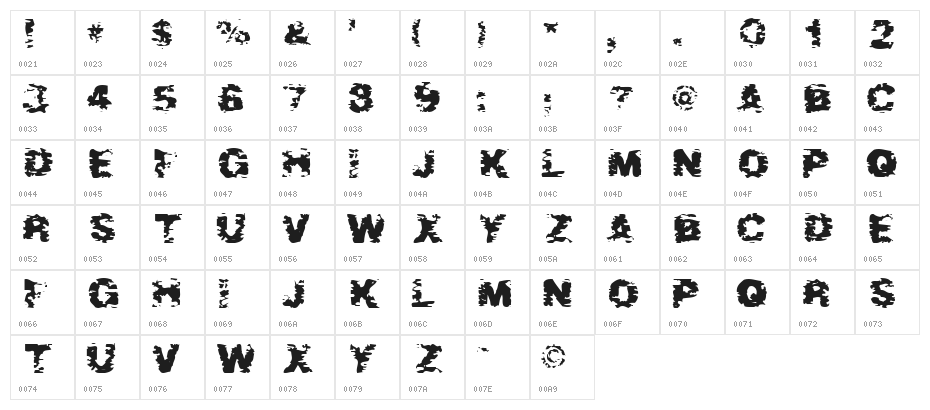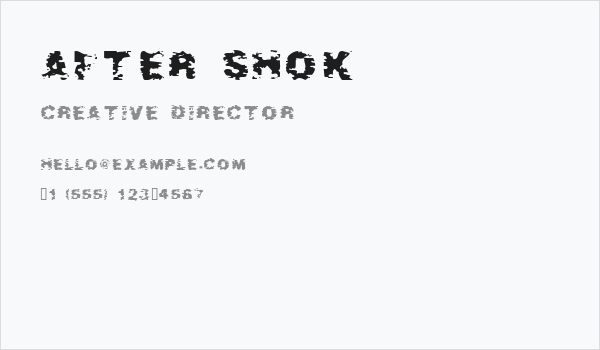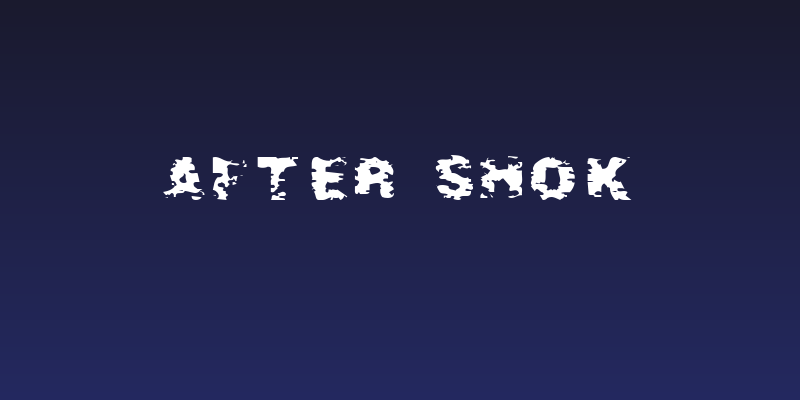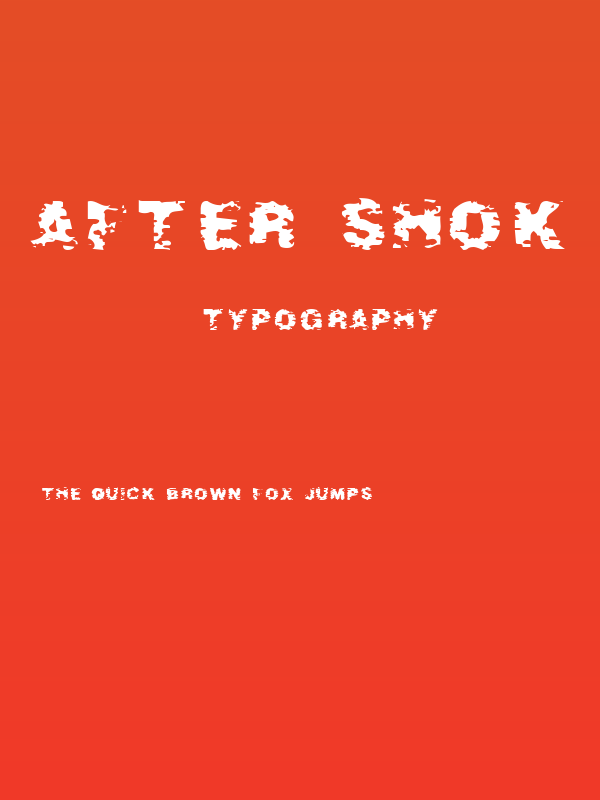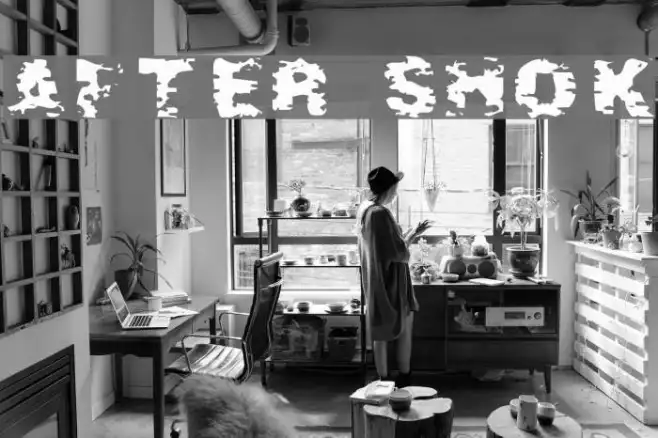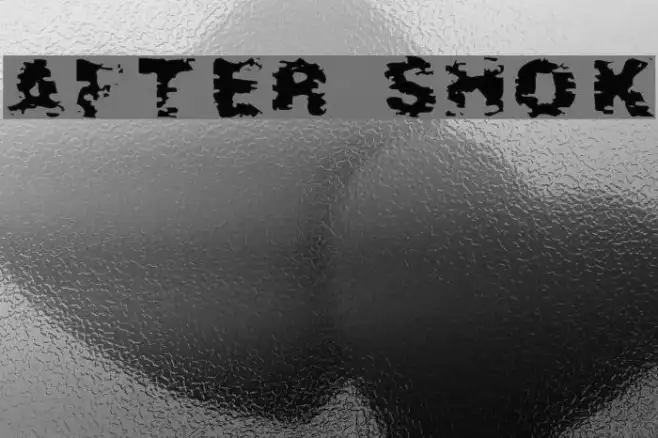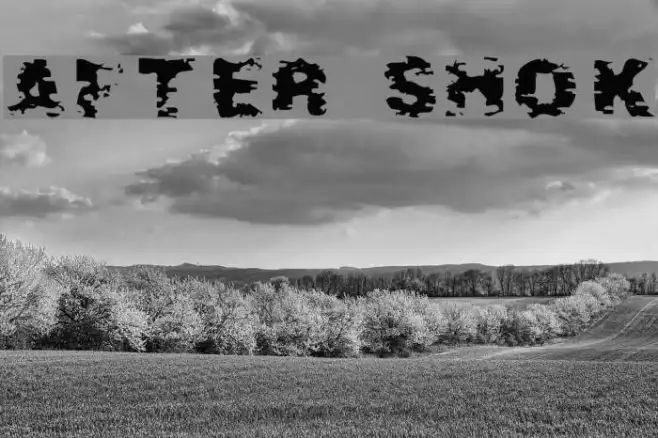
After Shok Font
After Shok Description
This font features a distressed, grunge style with a bold and impactful presence. Each character appears as if it has been weathered or eroded, giving it a unique, rugged texture. The uppercase and lowercase letters maintain a consistent design, with jagged edges and irregular shapes that add to its chaotic aesthetic. The numbers and special characters follow the same theme, ensuring a cohesive look across all glyphs. This font is perfect for projects that require a raw, edgy feel, such as music album covers, posters, or any design that aims to convey a sense of rebellion or nonconformity.
| Overall Style | Grunge, Distressed |
| Proposed Projects | Ideal for music album covers, edgy posters, rebellious branding, and creative projects seeking a raw, chaotic look. |